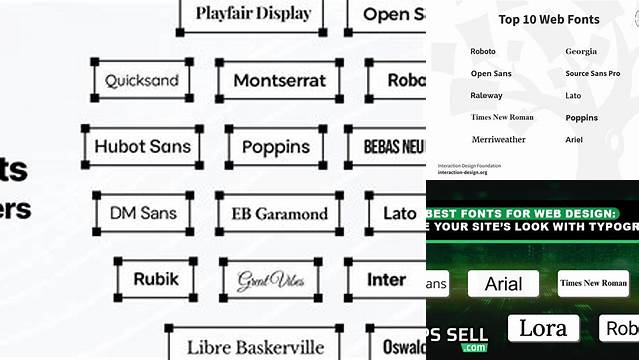
Top Web Fonts: Enhance Your Website's Appeal
Hey everyone! Choosing the best web fonts can seriously level up your website's design and make it super user-friendly. We're diving deep into the world of typography to help you pick fonts that not only look great but also boost your website's performance. This guide is all about finding those perfect fonts that speak to your audience and make your site stand out from the crowd. Ready to make your website a visual masterpiece? Let's get started!
1. Understanding the Importance of Web Fonts for User Experience
Guys, let's be real: web fonts aren't just about making your website look pretty; they're crucial for creating a killer user experience. Think about it – if your website is hard to read, visitors will bounce faster than a rubber ball. The right font ensures that your content is clear, readable, and enjoyable. It's about making sure your audience can easily absorb the information you're providing. The choice of font impacts everything from how long someone stays on your page to how they perceive your brand. A well-chosen font communicates professionalism, personality, and attention to detail. When you select the best web fonts, you're essentially investing in a seamless and positive user experience. This translates to higher engagement, more time spent on your site, and ultimately, better conversion rates. Consider the contrast, size, and overall style of your font choices; are they accessible to users with visual impairments? Does the font complement the rest of your design? All of these elements contribute to a great user experience. Choosing fonts that are optimized for the web also impacts how quickly your website loads. Slow-loading fonts can be a real deal-breaker for users, so choosing web fonts that are optimized for performance is critical. Think of your website as a book; the font is the type used to write that book. If the font is blurry, too small, or too difficult to read, your readers will abandon your book. Therefore, consider web fonts as an essential part of your website's accessibility. With the right font, your website becomes a pleasure to read, boosting user engagement and turning visitors into loyal followers.
2. Key Considerations for Selecting the Best Web Fonts
Alright, so, choosing the best web fonts isn't just about picking what looks cool – there's a lot more to it than that. First off, you gotta consider your brand's personality. Is your brand playful and fun, or more serious and professional? The font you choose needs to align with that. Also, think about readability. Can the font be easily read at different sizes and on various devices? Remember, your website visitors are using different devices, so your font must be readable across all of them. Another important factor is the font's character set – does it support all the characters and symbols you need? And what about licensing? Make sure you're using fonts legally. You can use Google Fonts, which are free and easy to use, or consider buying fonts from professional foundries. When picking the best web fonts, focus on choosing a font that is functional as well as aesthetically pleasing. It should be easy to read and should support the content you want to present. Your font choices can dramatically impact how your visitors perceive your brand. Consider the message that the typeface is conveying. Is it clean and modern? Or is it more traditional and ornate? Your font choices will also affect the overall tone of your website. Using the wrong fonts can send the wrong message, leading to negative impacts such as lower engagement and a poor user experience. Make sure to choose the font that can be seen well on all devices. Finally, testing is key. Once you've picked a few fonts, try them out on your website and get feedback from others. See how they look and feel. Are they easy to read, or do they clash with your design? With careful planning, you'll get the best web fonts for your website.
3. Top Web Font Categories: Serif, Sans-Serif, and Display Fonts
Let's break down the best web fonts into some categories, shall we? First up, we have serif fonts, which have those little strokes, called serifs, at the ends of the letters. Think of Times New Roman or Georgia. These fonts often give a more traditional and formal feel, and they can be great for body text because the serifs help guide the reader's eye across the page. Next, we have sans-serif fonts, which don't have those serifs. Arial and Open Sans are good examples. These fonts often feel more modern and clean, making them perfect for headlines, subheadings, and short bursts of text. The clean lines of these fonts are well suited for websites. Finally, there are display fonts, which are meant for headings, titles, and other stand-out text. These fonts come in all shapes and sizes – from bold and funky to elegant and script-like. Display fonts are designed to grab attention, so use them sparingly to avoid overwhelming your website's design. Serif fonts tend to evoke a sense of tradition and reliability. Sans-serif fonts exude a sense of modernity and clarity. Display fonts can infuse a dash of personality into your design. Understanding the different types of font will allow you to make a more informed selection of the best web fonts for your website, and the impact each type will have. When you pair your website with these font categories, you can really emphasize the different parts of the design. When choosing fonts for your website, think about how the different types of fonts work together. Mixing serif and sans-serif fonts can be a great way to add contrast and visual interest. Remember to choose fonts that reflect your brand's personality and align with the overall tone of your website.
4. Best Practices for Font Pairing to Enhance Readability
Okay, so you've got some favorite fonts, but how do you make them work together? Font pairing is a real art, and it's super important for readability. When picking the best web fonts, the key is contrast. You don't want fonts that are too similar, as they'll just look like a jumbled mess. Instead, go for fonts that complement each other. Consider pairing a serif font for your body text with a sans-serif font for your headings. This creates visual interest and helps your readers navigate the page. Balance is also important. You don't want one font to overpower the other. The body text is typically the most used text on the website, and its font should be easy to read and blend in. The heading fonts are typically for headlines, subheads, and other text intended to stand out. The headline should be in a font that complements the body text but also stands out. You can experiment with different pairings using online tools like Google Fonts, which make it easy to see how fonts look together. Think of how the font styles complement each other. If you're using a classic serif font, maybe pair it with a modern sans-serif font to create a balanced look. Always test out your font pairings on your website and make sure they look good together in the real world. Check how the fonts look across different devices and browsers. You can also get feedback from others to ensure you've selected the best web fonts to improve readability and enhance the visual appeal of your website.
5. The Role of Font Weight and Size in Web Design
Let's talk about font weight and size because they are important factors when selecting the best web fonts. Font weight refers to how bold or light a font is. You can use different weights to create a visual hierarchy and guide the reader's eye. Using bold text for headlines and subheadings helps them stand out from the body text, making it easier for visitors to scan and understand your content. Font size is also critical for readability. You want to make sure your text is large enough to be easily read on all devices. Also, consider using relative units like em or rem for font sizing. These units scale with the user's browser settings, which can improve accessibility. You can also use different font sizes and weights to create visual interest. Use a heavier weight for your headlines and a lighter weight for your body text. Using font sizes and weights will increase your website's visual appeal and improve user experience. Font weight and size work together to make your website's text readable. Use these elements to create a clear and visually appealing design. Experiment with different font weights and sizes to find the best combination for your website. When selecting the best web fonts, always preview your website on different devices to ensure that your fonts are readable and visually appealing. This will ensure that your content is accessible and engaging for all users.
6. Choosing Web Fonts for Mobile Responsiveness
Hey, in today's world, most people are browsing on their phones, so picking mobile-friendly web fonts is absolutely essential! When you select your fonts, think about how they'll look on small screens. Some fonts that look great on a desktop can become a blurry mess on a phone. Choose fonts that are legible at small sizes and weights. Make sure your fonts are scalable and responsive. This means that they should automatically adjust to fit the screen size. Test your website on different devices to ensure your fonts are readable. Responsive fonts ensure that the content looks great on all screen sizes. Consider the line height and letter spacing – these can make a big difference in readability on mobile. Don't be afraid to adjust the font sizes and weights to optimize for mobile devices. This is about creating a great experience for all users. By making the right font choices, you can ensure your content is accessible and easy to read on any device. You can also use responsive design techniques like media queries in your CSS to adjust the font sizes and other design elements based on the screen size. You can select the best web fonts that can be optimized for mobile devices. Ensure your website is not only visually appealing but also functional and accessible for mobile users.
7. Free vs. Paid Web Fonts: Weighing the Options
Let's talk about money, guys! You can find both free and paid web fonts, and each option has its pros and cons. Free fonts, like those from Google Fonts, are awesome because they don't cost a thing. They're a great way to get started and experiment with different styles. However, free fonts often have limited licenses, which might restrict how you use them. Also, some free fonts might not be as polished or have as many weight variations as paid fonts. Paid fonts, on the other hand, usually come with more extensive licensing options and often have more design variations. This can give you more control over your website's branding. You'll also be able to purchase fonts that are custom-made. However, paid fonts obviously cost money. Weighing the pros and cons is important. You need to weigh the benefits against the cost. Google Fonts has a huge selection of free fonts, and you can access many high-quality options there. If you're on a budget, or just starting out, these fonts are a great place to begin. But if you want the utmost quality and flexibility, investing in paid fonts can be a smart move. The best web fonts depend on your needs and budget. Make the right decision, and make sure your font choices are compliant with the licensing rules. This will avoid any legal issues later on.
8. Utilizing Google Fonts for Website Typography
Let's talk about Google Fonts – a real lifesaver for web designers. Google Fonts is a library of free, open-source fonts that you can easily use on your website. It's a simple process to embed these fonts in your website. You just need to copy and paste a few lines of code into your HTML. Google Fonts are super user-friendly and come with a wide variety of fonts. You can find everything from classic serifs to modern sans-serifs. You can also easily customize the fonts by using CSS. With the availability of Google Fonts, you can select the best web fonts for your website. Google Fonts are also optimized for web use, which means they load quickly and look great on all devices. And the best part? They're free! You can use them for commercial and personal projects without any licensing fees. This makes Google Fonts an excellent resource for designers of all levels. You can use Google Fonts to easily find and implement your website's typography. You can also use the Google Fonts website to experiment with different fonts and see how they look on your website. With such a large selection of fonts, you're bound to find the perfect one for your website. Using this tool, you can customize your website's typography easily. Ensure your website's fonts are visually appealing and accessible to all users.
9. Best Practices for Web Font Optimization and Performance
Now, let's talk about speed! When using web fonts, you need to optimize them to ensure your website loads quickly. Slow-loading fonts can frustrate your visitors and hurt your SEO rankings. Here's the lowdown: first, choose fonts that are optimized for the web. Use font formats like WOFF2, which are designed for fast loading. Reduce the number of font files that you're loading. Too many font files can slow down your website. Use a font loading strategy. Consider using the font-display CSS property to control how the font loads. Also, you can preload your fonts. This tells the browser to load the fonts as early as possible. Finally, you can minify your CSS files, which can help reduce file sizes. When selecting your fonts, consider their file size and their impact on your website's loading speed. Choose only the fonts you need, and avoid using fonts that are overly complex. Ensure your website runs as smoothly and quickly as possible. Optimizing the best web fonts will benefit both your users and your website's ranking. Always test the fonts on different devices to ensure that they are loading correctly. By following these practices, you can reduce the loading time and boost your website's performance.
10. Web Font Licensing: What You Need to Know
Okay, let's get legal. You have to understand font licensing when using web fonts. Fonts are typically licensed, not owned. This means you're granted permission to use the font, not own it outright. The licenses can vary greatly. Some fonts are free for commercial use, while others require you to pay a fee. Be sure to read the license agreement carefully before you use a font. Look at the usage restrictions. Some licenses might limit the number of websites you can use the font on. Others might have restrictions on the type of content you can use the font for. Be aware of the embedding restrictions. Some licenses might limit how you can embed the font on your website. Make sure you buy a license that allows you to use the font on the web. Always check the license agreement to ensure that you are complying with the terms. Always be aware of the licensing of the best web fonts you choose to use. Choosing a font that doesn't meet your needs or is too expensive can be a waste of time. Remember that respecting the license is crucial to protect the rights of the font designers. Choosing the right licensing can prevent legal issues in the future.
11. Testing and Previewing Web Fonts Before Implementation
Before you commit to using web fonts, it's super important to test them out. See how they look on your website. There are several ways to preview your fonts. You can use the font preview tools that are available on Google Fonts. With this tool, you can see how fonts appear on different text and backgrounds. You can also manually test the fonts on your website. This can give you a more accurate view of the font's performance and readability. Try your website on different devices and browsers. This ensures that the fonts are rendering correctly and that the website looks great. Also, use a font comparison tool to compare different fonts. Some of the web's greatest designers use font comparison tools to get the best web fonts. Testing helps you identify potential issues before you launch your website. Ask for feedback from others. Get their opinions on how the fonts look and feel. Do they find the text easy to read? This is a key process to make sure you've chosen the right font. By testing your website's typography, you can be sure that you're making a good choice.
12. How Web Fonts Impact Website SEO and Accessibility
Did you know that your choice of web fonts can impact your website's SEO and accessibility? It is a factor that is often overlooked, but is critical to your success. First off, font performance affects your website's loading speed. Slow-loading fonts can hurt your SEO rankings. Google wants to provide a great user experience, so they favor websites that load quickly. So, optimizing your fonts is crucial. Then, the accessibility of your fonts matters. Choose fonts that are readable for all users. Use a font size that is readable on all devices. Make sure you're providing sufficient color contrast between the text and background. Also, use alternative text for your images. This will help screen readers understand your content. If you have the best web fonts and also provide good accessibility, you're contributing to a more inclusive experience for your users. You also improve your SEO. This can improve your search engine rankings. Make sure you are choosing fonts that are optimized for performance. Your fonts should load quickly and not slow down your website. Choose fonts that are accessible to everyone. Your website should be easy to read and navigate. Make sure to get the right font and maximize the impact of your website's SEO and accessibility.
13. Utilizing CSS for Web Font Customization and Styling
CSS is your best friend when it comes to customizing and styling your web fonts. You can use CSS to control everything from font size and weight to color and spacing. Here's a breakdown of some key CSS properties: font-family lets you specify the font. font-size adjusts the size of the text. font-weight determines the boldness of the font. font-style controls the slant (italic, oblique). color sets the text color. CSS gives you the power to create a unique look. But with this power comes responsibility. You need to consider accessibility when customizing your fonts. Use relative units (like em or rem) for font sizes. This ensures that the text scales proportionally to the user's browser settings. Also, pay attention to color contrast. Make sure the text color contrasts well with the background. Choose the best web fonts and make the text easy to read. Be consistent in your styling. Apply your styles throughout your website to maintain a consistent design. Remember, CSS is your tool to create a visually appealing, functional, and accessible website. Experiment with different combinations of styles and settings. This will help you find the perfect look for your website.
14. Choosing the Right Fonts for Different Website Niches
Picking the best web fonts isn't a one-size-fits-all kind of deal. The right font really depends on your website's niche. For instance, if you run a blog about fashion, you might choose a more stylish and elegant font. If you are a technology website, you might opt for a clean, modern sans-serif font. For a website aimed at children, a playful and friendly font might be the right choice. Think about your target audience. What kind of font would appeal to them? Make sure your font choice reflects the personality of your brand. Remember that the font you choose is the voice of your brand. Make sure it aligns with your brand's identity. Experiment with different fonts. It's okay to try different fonts before you commit to one. You might be surprised by what works. You can test your font on different devices and browsers. That will make sure that the font displays correctly. Choosing the right font requires consideration of your audience and the overall message of your website. With the best web fonts, you can attract the right audience, create a better user experience, and communicate your brand effectively.
15. Font Display Options: Swap, Fallback, and Block
Let's talk about font display options. These are crucial for optimizing the loading and display of your web fonts. The font-display property in CSS helps you control how the font is rendered. The font-display: swap setting ensures that the text is visible immediately. It switches to the custom font once it's loaded. This gives a better user experience. The font-display: fallback setting displays a system font while the custom font is loading. This ensures the user can read the content. This is a good option if your font is slow to load. The font-display: block setting hides the text until the font is fully loaded. This can lead to a flash of invisible text. This can affect the user experience. Choose a font display setting based on your priorities. Think about your user experience and your website's performance. Consider how important the specific font is to your website. Font-display options are all about optimizing your website. You have to make sure that the text is visible to your users as quickly as possible. Choose the best web fonts based on the needs of your users and website. Choosing the right font display setting can improve your website's overall performance.
16. Advanced Typography Techniques: Kerning, Tracking, and Leading
Alright, let's get a bit fancy with advanced typography techniques! These are the secrets of the pros. Kerning refers to the adjustment of space between individual letters. Tracking (also known as letter-spacing) adjusts the overall space between all the letters in a word or block of text. Leading (also known as line-height) adjusts the space between lines of text. You can use these techniques to improve the readability and visual appeal of your website. This is all about making the text easier to read. Kerning can be used to correct imperfections in letter spacing. Tracking can be used to give text a more open or condensed look. Leading can be used to improve readability and make your text easier to scan. You have to use these techniques with care. Too much adjustment can make your text harder to read. Remember, it's all about improving the user experience. These techniques allow you to refine the design. Use these techniques to create a more polished and professional look for your website. You can select the best web fonts and then use the techniques to make your content more visually appealing.
17. Web Font Generators and Tools for Designers
There are some super helpful web font generators and tools out there that every designer should know about. They make it easier to find and manage web fonts. Fontjoy is a great tool for pairing fonts. It uses machine learning to suggest font pairings that work well together. Type-scale.com helps you create a consistent typography system. This is a must-have tool for designers. Wordmark.it helps you preview your text in various fonts. It can help you quickly find the best font for your needs. Font Squirrel is a useful resource for free fonts. It is a great place to start your font search. Use these tools to streamline your font selection process. You can speed up your workflow. The tools can help you test and refine your font choices. Remember to use these tools as a starting point. Always test the fonts on your website. Make sure they look great on all devices. With these tools, you can find the best web fonts quickly and efficiently. These tools are the secret weapon of great designers.
18. Common Web Font Mistakes to Avoid
Let's talk about some common web font mistakes to avoid, so you don't make them! Using too many fonts is a big no-no. Stick to a maximum of two or three fonts on your website. This will help your design stay clean and organized. Choosing fonts that are hard to read is another mistake. Make sure your fonts are easy to read at all sizes and on all devices. Ignoring font licensing is another one. Be sure you have the proper rights to use the font. Using fonts that don't align with your brand is another error. Your font choices should be consistent with your brand's style and tone. Overusing bold and italic fonts is also a mistake. You should use these sparingly to highlight important text. Ignoring the font size for mobile devices is a mistake. Make sure your fonts are readable on all devices. Remember to avoid these common mistakes. By avoiding these common mistakes, you can ensure your website is visually appealing and user-friendly. If you remember the mistakes to avoid, you will be able to choose the best web fonts for your website.
19. Utilizing Variable Fonts for Enhanced Design Flexibility
Have you heard of variable fonts? They are a game-changer for web design! Variable fonts are a single font file that contains multiple design variations within it. This means that instead of loading separate font files for different weights, styles, and widths, you can access all of them from one file. This can lead to faster loading times and a more flexible design. Variable fonts offer flexibility because you can adjust the font's properties on the fly. This means that you can change the font's weight, width, and slant. Variable fonts can be used to create unique and dynamic typography. You can use them to create interesting animations and effects. They can be used to create a more responsive design. Variable fonts are also optimized for web use. This means that they load quickly and look great on all devices. If you use variable fonts, you are choosing the best web fonts for your website. If you are looking for a way to create a more dynamic and flexible website, then variable fonts are a great choice.
20. The Future of Web Fonts: Trends and Innovations
So, what's next in the world of web fonts? Let's take a peek at some upcoming trends and innovations! There's a growing emphasis on accessibility. Designers are focusing on creating fonts that are easy to read for all users. Variable fonts are here to stay. They will continue to evolve and offer even more flexibility. The rise of custom fonts is another trend. You will see more websites using unique, custom-designed fonts. This will make websites stand out. Improved web font performance is another trend. Developers are always looking for ways to optimize fonts for faster loading times. This benefits SEO, too. The trend toward more personalized fonts will also continue. Designers are using AI and machine learning to create fonts that respond to user behavior. Staying up-to-date on these trends and innovations will help you make the best web fonts for your website and create a website that is both visually appealing and future-proof.
21. Selecting Web Fonts for E-commerce Websites
Choosing the right web fonts for e-commerce websites is a bit different than for other types of sites. In e-commerce, the goal is to convert visitors into buyers, so you need to choose fonts that create trust. Readability is key. Make sure your product descriptions and other important text are easy to read. Choose fonts that convey professionalism and reliability. When choosing your fonts, consider your brand's personality. Are you aiming for a luxurious, high-end feel? Or a more casual, everyday vibe? Think about how your fonts will look on product images. Your fonts need to complement your visuals. Test your fonts on different devices and browsers. Be sure your customers have a great experience on all platforms. Selecting the best web fonts for your e-commerce site is not just about aesthetics; it's about driving sales. Ensure your fonts are easy to read and convert visitors into buyers.
22. Optimizing Web Fonts for Internationalization and Localization
When you design a website, you want to make sure that users around the world can access it easily. That's where internationalization and localization come in, and your choice of web fonts plays a big role! First, make sure your fonts support the languages you're targeting. Some fonts support only a limited set of characters, so you'll need to choose fonts that support the characters needed for each language. Consider the cultural connotations of your fonts. Some fonts are associated with specific cultures or countries. Make sure that your font choices align with the cultural expectations of your target audience. Test your website in different languages. Be sure everything looks correct. Make sure that all the characters are displayed correctly. You will want to ensure all your text is readable. The best web fonts will work perfectly for users of all languages. Pay attention to character sets. Some languages require specific character sets, so make sure your fonts support those characters. Following these tips will enable your website to reach a global audience, improving your brand's visibility and user experience.
23. Using Web Fonts for Branding and Brand Identity
Fonts are a crucial part of branding and brand identity. Your web fonts are the voice of your brand. They communicate your brand's personality. First, think about your brand's values and mission. Are you a serious and professional company? Or are you a fun and playful brand? Your fonts should be consistent with your brand's image. Your fonts should also be used consistently. Stick with the same fonts across all your marketing materials, from your website to your social media posts. This will build brand recognition. Always think about the readability of your fonts. You want your audience to be able to read your message. Remember, the best web fonts will help you build a strong brand identity. A strong brand identity will help you build loyalty. The font you choose can convey your message to your audience.
24. Web Font Accessibility: Ensuring Readability for All Users
Accessibility is essential when you choose web fonts. Your website should be accessible to everyone, including people with disabilities. This is not only the right thing to do, but it's also good for business! Choose fonts that are easy to read. Ensure that your website has a good contrast between the text and the background. This is especially important for people with visual impairments. Always provide alternative text for your images. This allows screen readers to describe images for people who are visually impaired. Test your website with screen readers. This will help you understand how people with visual impairments experience your website. Use relative units for font sizes. This will make it easier for people to resize the text on your website. Accessibility is a critical consideration when choosing fonts for your website. Make sure your website is inclusive and provides a positive experience for all users. Choosing the best web fonts means accessibility is a priority. This makes your website usable for all.
25. The Impact of Web Fonts on Website Loading Speed
Guys, let's talk about website loading speed! This is a huge deal. Slow loading times can drive visitors away. Your web fonts can have a big impact on how quickly your website loads. Choose fonts that are optimized for the web. Use web-friendly font formats. Use a font loading strategy. You can choose how your fonts load. Load fonts asynchronously. This lets the rest of your website load while the fonts are loading. Reduce the number of font files on your website. Limit the number of font weights and styles that you use. The more fonts you use, the slower your website will load. Optimizing the best web fonts means considering their impact on performance. Minimize the file size of your fonts. Use a CSS preprocessor to minify your CSS files. A fast-loading website improves the user experience. This can also boost your SEO. A faster website also results in better search engine rankings.
26. Web Font Security and Privacy Considerations
When selecting web fonts, security and privacy are super important. Make sure you're using a reputable font provider. Protect your website from security threats. If you're using self-hosted fonts, be sure to protect the files. This can be done using web server security settings. Always read the font's privacy policy. See how the font provider collects and uses your personal information. Be aware of the data that is collected. Some font providers may collect your IP address or other information. Use HTTPS. Make sure your website uses a secure connection. This will protect your user's data. If you're concerned about privacy, self-hosting your fonts can give you more control. You'll need to download the font files and host them on your server. Always be sure to protect user data. Your user's information is super valuable, and you have to do everything to keep it safe. Choosing the best web fonts also means choosing a secure font. If you have any security concerns, you may want to self-host your fonts.
27. Using Web Fonts to Create a Unique Visual Identity
Web fonts are key to creating a unique visual identity for your brand! Think of your font as the voice of your brand. They communicate your brand's personality. Your font choices should be consistent with your overall design. Use fonts that reflect your brand's values. Your fonts can also help you to create a memorable brand. When a user sees your font, they should know it's you. Test your fonts across your brand's marketing materials. Your font choices should be used consistently across your website and other marketing channels. Choose fonts that are well-suited to your brand's tone and style. This will make sure the brand's message is consistent. Using the best web fonts is vital for establishing a strong brand. Having a distinct visual identity is a fantastic way to stand out in the crowded online world. Consider your fonts a key element of your brand identity. Consider your font choices a key aspect of your brand identity.
28. Web Font Combinations: Finding the Perfect Pairings
Finding the right web font combinations is like creating a perfect recipe. You want fonts that complement each other, not clash! There are many great ways to find font pairings. Think about pairing a serif font with a sans-serif font. This creates a nice visual contrast. Experiment with different combinations. Use online font pairing tools. These tools can suggest font pairings that work well together. They're great if you're just starting out! The pairings should also reflect your brand's personality. Your font pairings should be based on your brand's message. You can create pairings that provide a sense of professionalism or playfulness. It's all about balancing readability with visual appeal. Remember, the right font combinations can elevate your website's design. With the best web fonts used in the right combination, you can make the most of your content.
29. Web Font Design Trends: What's Hot Right Now
Let's check out some current web font design trends! Minimalist fonts are popular. These are clean and simple, and they work well in a variety of designs. Handwritten fonts are still going strong. They add a touch of personality and charm to a website. Variable fonts are gaining traction. They offer more design flexibility and are optimized for the web. Geometric fonts are also popular. These are characterized by their clean lines and shapes. If you want your website to feel more modern, geometric fonts can be a great choice. Display fonts are used for headlines and titles. These are larger and more decorative. You want to make sure they grab a visitor's attention. When selecting the best web fonts, keeping up with these trends will help you to create a design that is both modern and appealing. Pay attention to these trends when you want to give your website a fresh look. Your web font choices will keep your website looking its best! By incorporating current trends into your design, you can create a website that is both stylish and functional.
30. Troubleshooting Common Web Font Issues
Sometimes you run into problems with your web fonts, so let's troubleshoot them! If your fonts aren't displaying correctly, there are a few things to check. Make sure your fonts are correctly linked in your HTML and CSS. Double-check the file paths. Make sure your font files are in the correct format. Common formats include WOFF and WOFF2. Clear your browser cache. Sometimes the old font files can be cached. Check your font license. Make sure you have the correct license to use the font. Ensure the font supports the character sets you are using. If your fonts are slow to load, you have to optimize them. Choose web-optimized font formats. Use a font loading strategy like font-display: swap. Reduce the number of font files on your website. Testing is important. Test your fonts on different browsers. If you're still facing issues, consult a web developer or designer. Make sure you are getting the best web fonts for your website, and be sure that they display and load correctly. Troubleshooting these font issues will make your website look great and load quickly. By addressing these issues, you can be sure that the website is user-friendly.